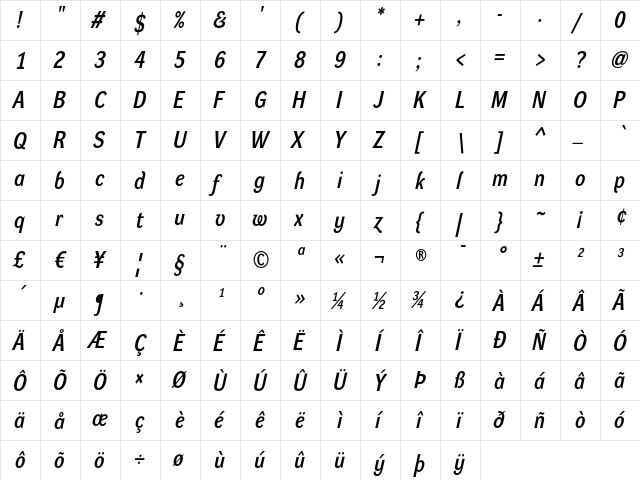
DynaGrotesk LM Bold Italic
Design Context for DynaGrotesk LM Typeface
DynaGrotesk LM has the quiet confidence of well-executed sans-serif typography: versatile, unobtrusive, and dependable at any size. The slanted form adds forward momentum and visual energy. Its bold stroke weight gives it real presence on the page.
Well-suited to navigation labels, product packaging, and anywhere legibility at scale is essential.
Font Pairing: Use DynaGrotesk LM for headlines alongside a lighter-weight sans or serif for body copy to establish clear visual hierarchy.
Pro Tip: Use DynaGrotesk LM for UI labels, navigation, and short-form body copy where clean legibility is the priority.